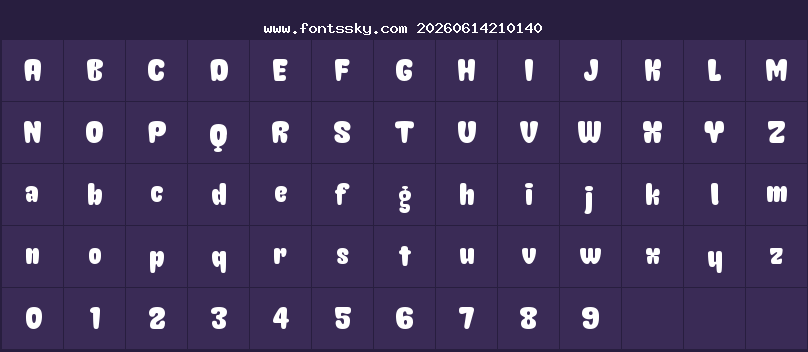
SG Summer Display Preview
• Font Name: SG Summer Display
• Full Font Name: SG Summer Display Regular
• PostScript Name: SGSummerDisplay-Regular
• Designer: Studio Gulden Team
• Manufacturer: Studio Gulden
About SG Summer Display.ttf
SG Summer Display.ttf is a modern, elegant sans-serif font designed for ultimate readability and visual harmony. Perfect for branding, headlines, web design, and print materials.